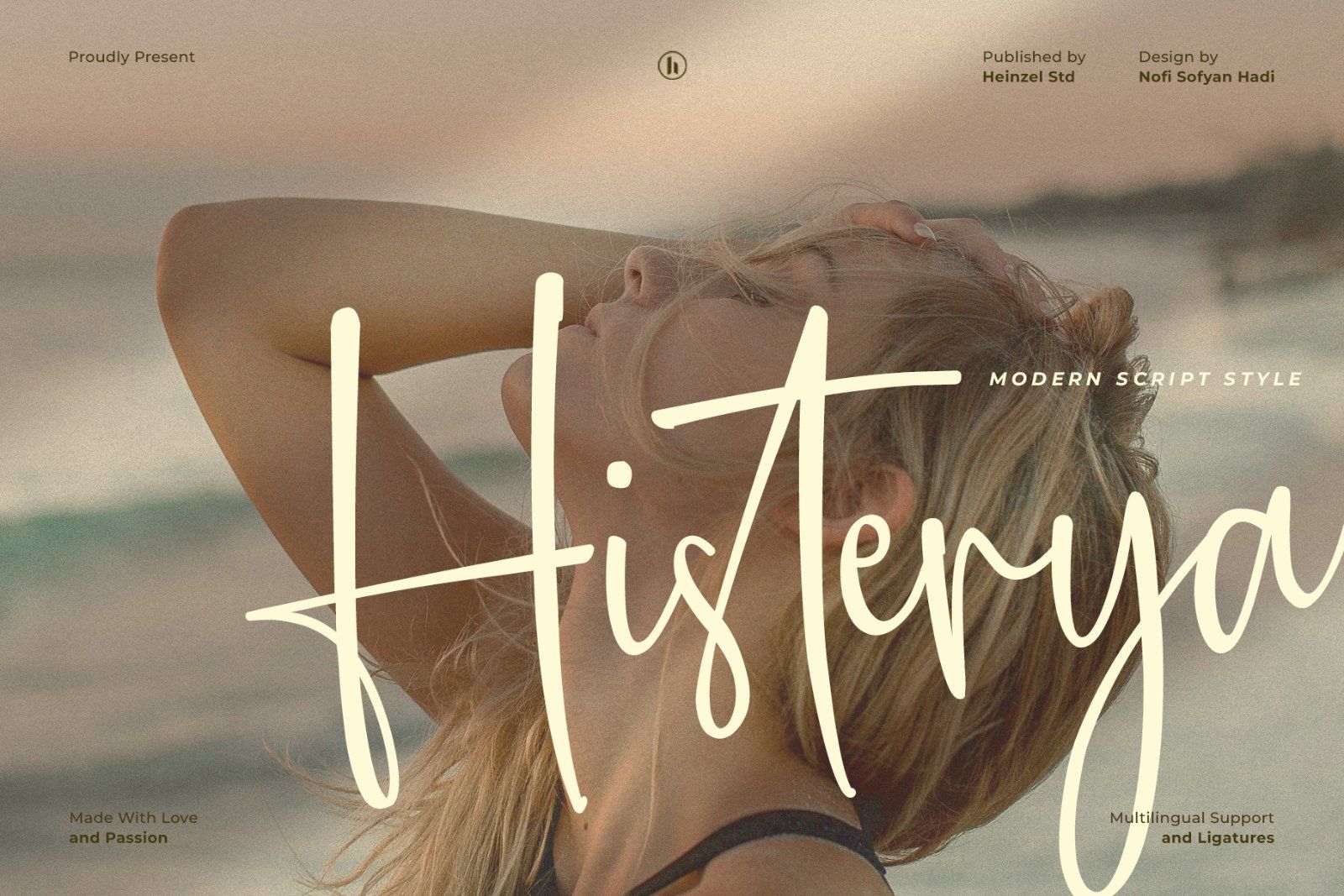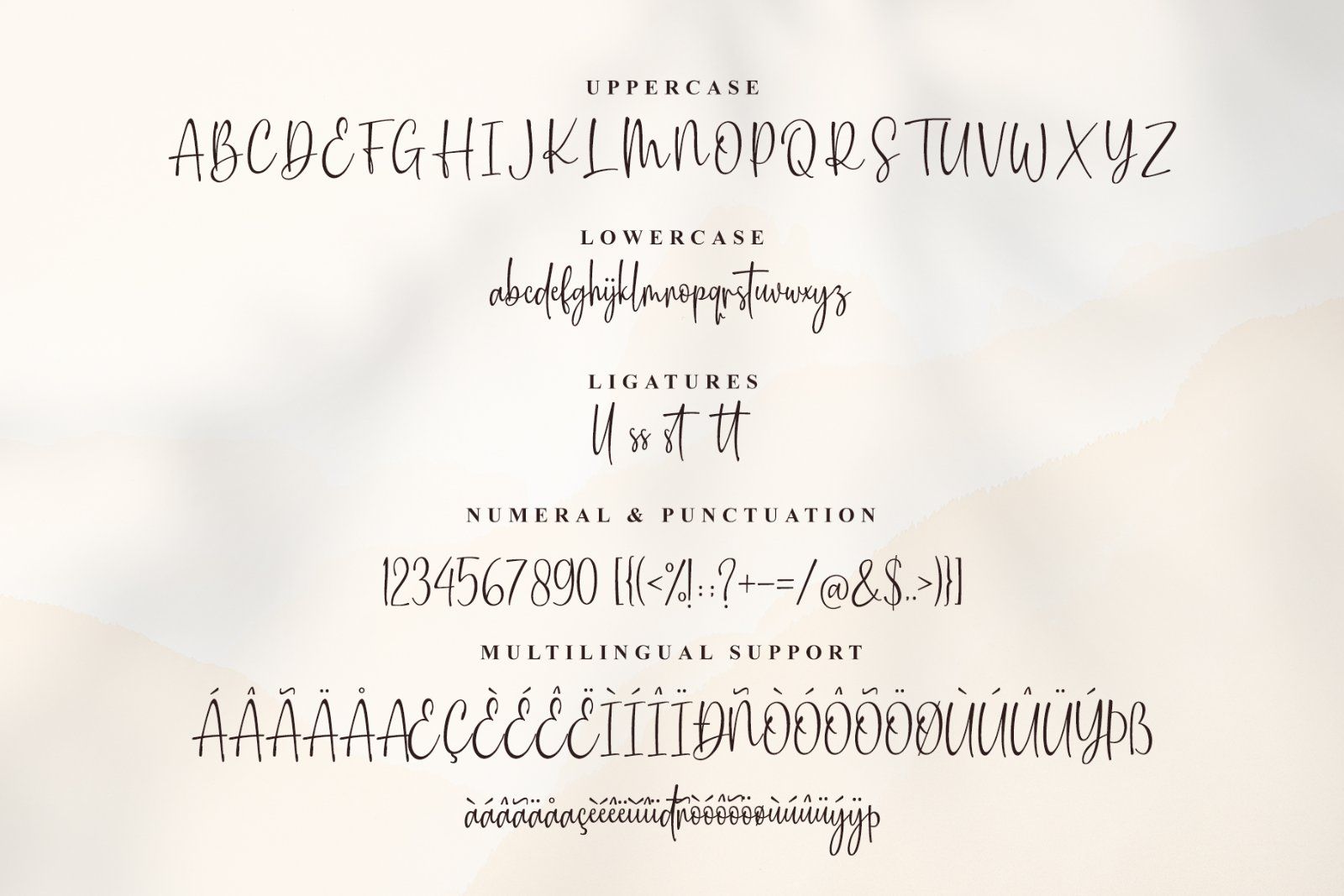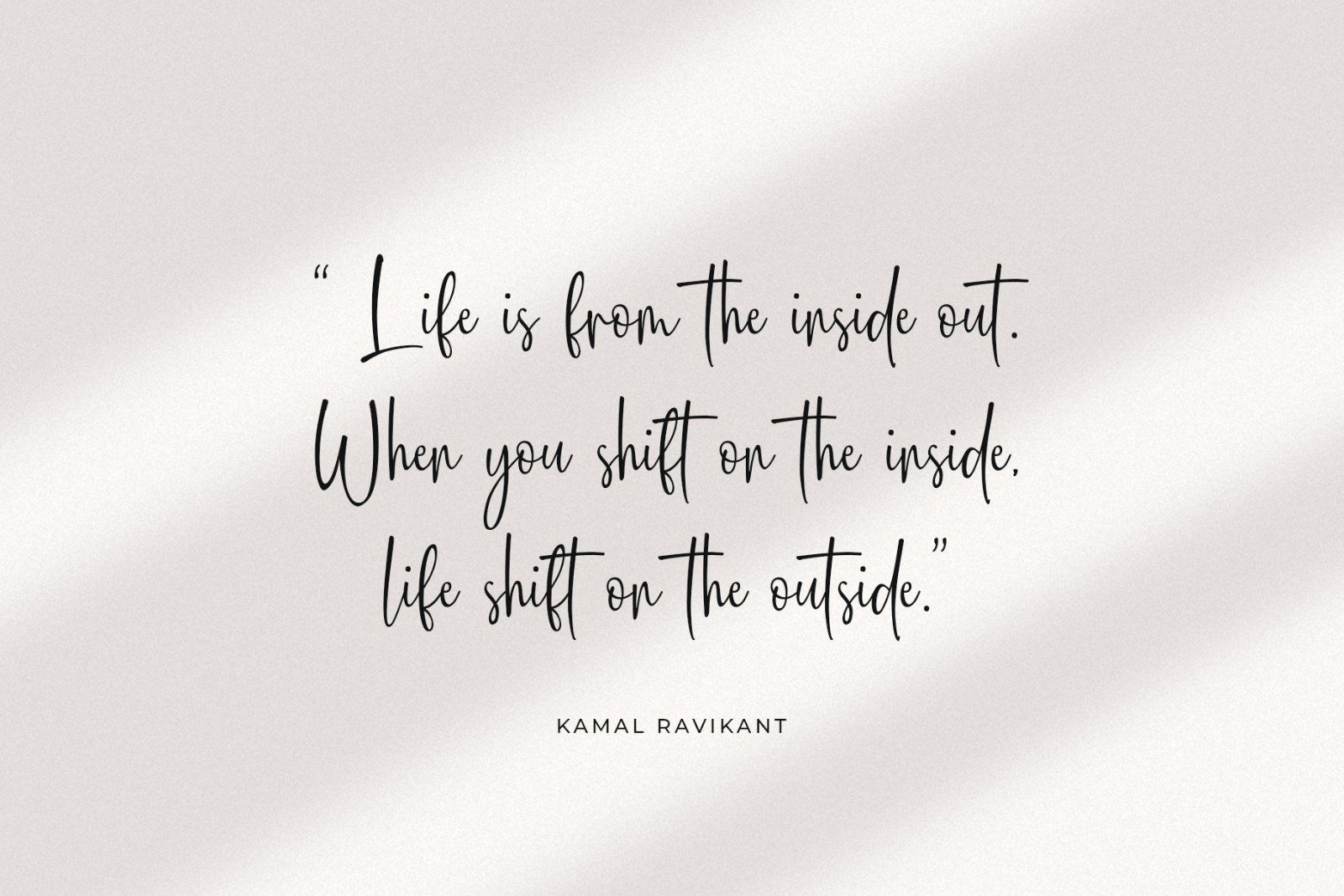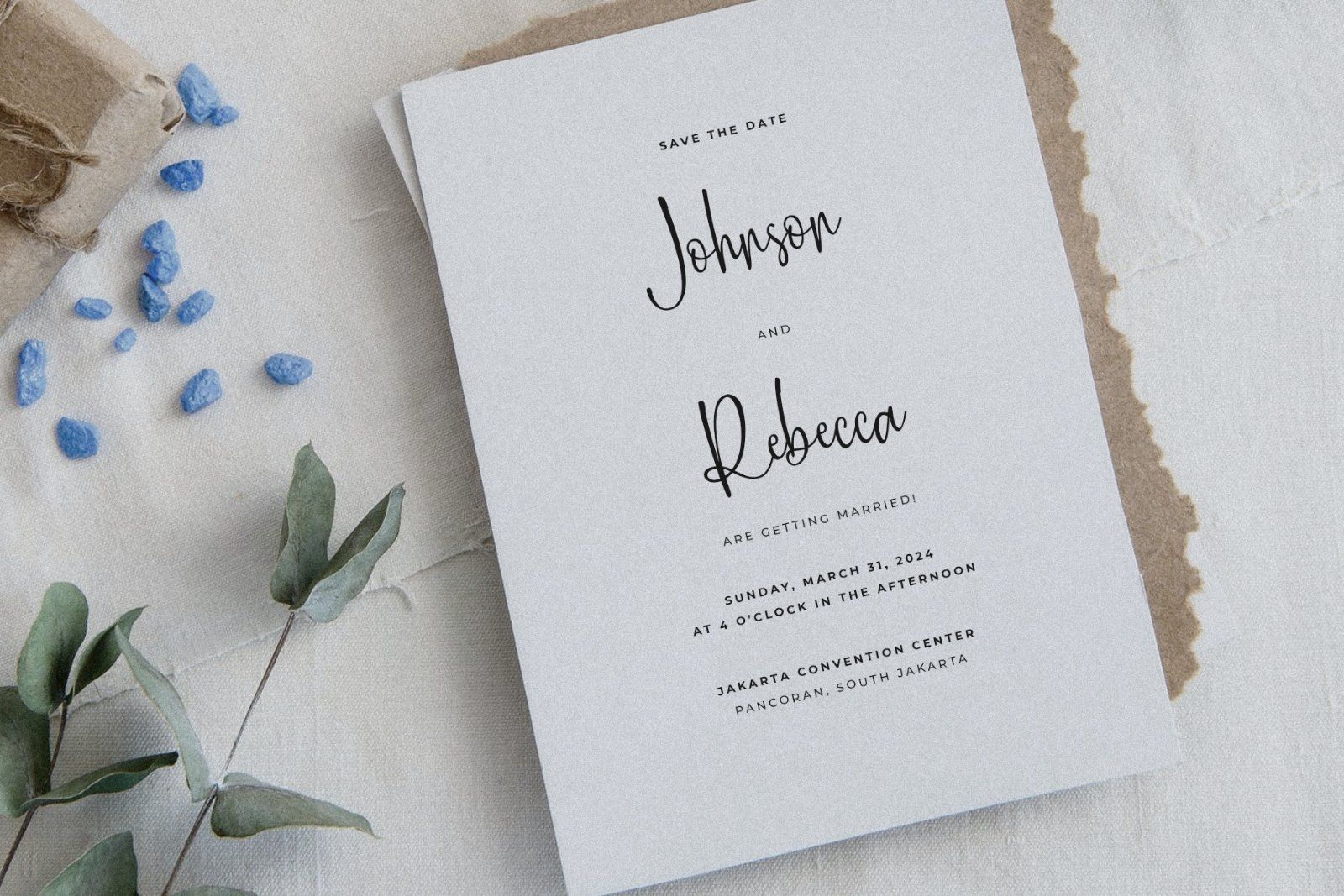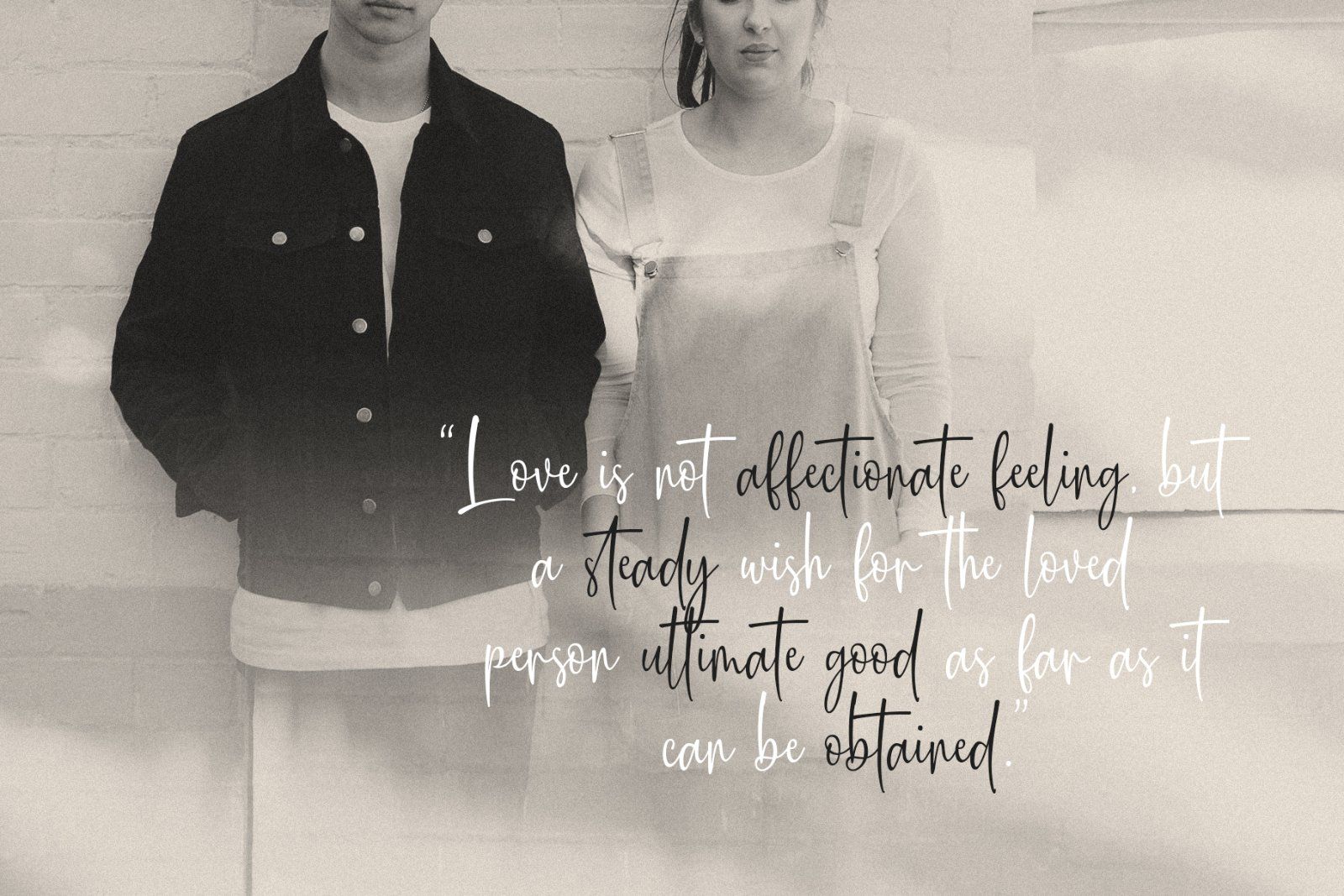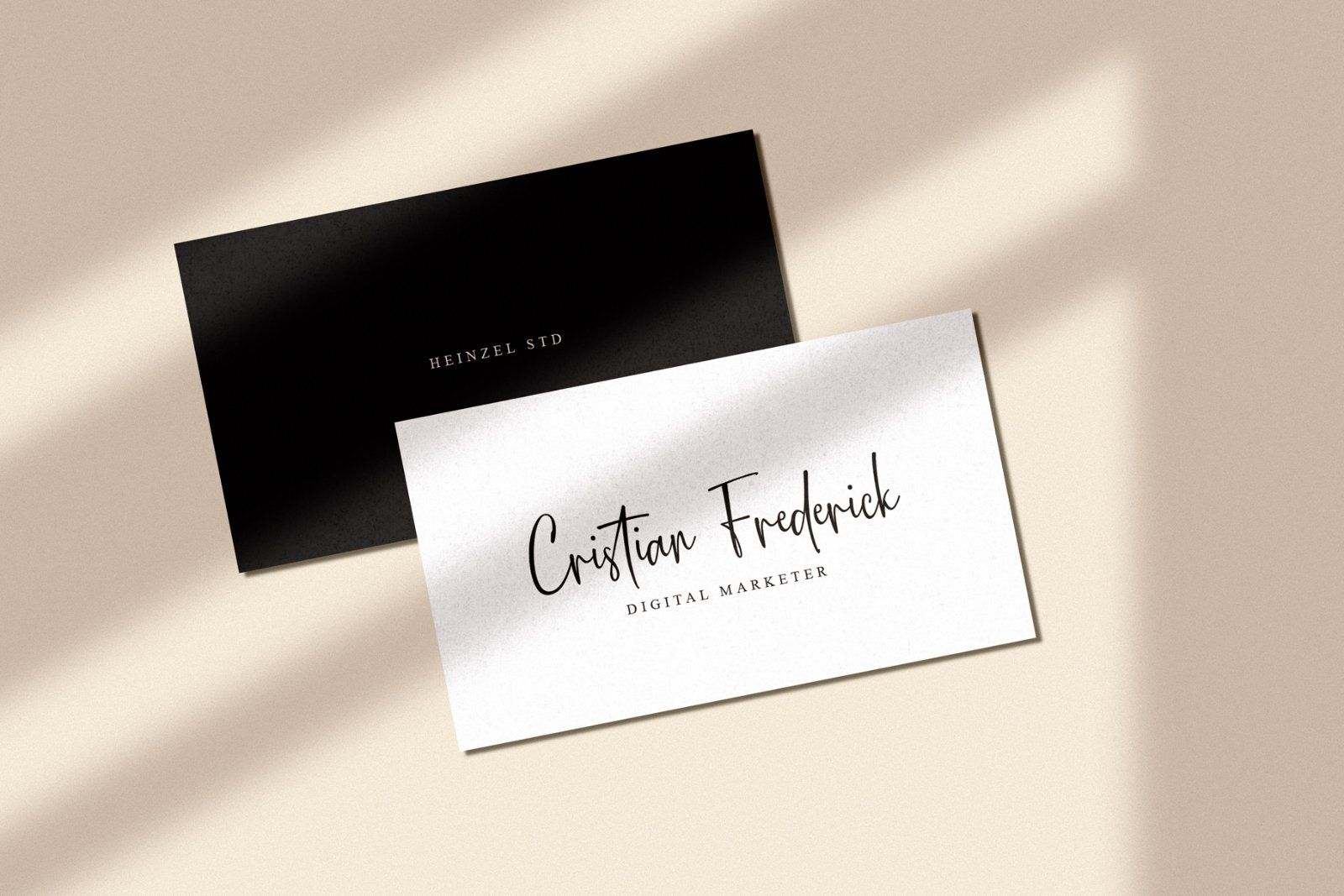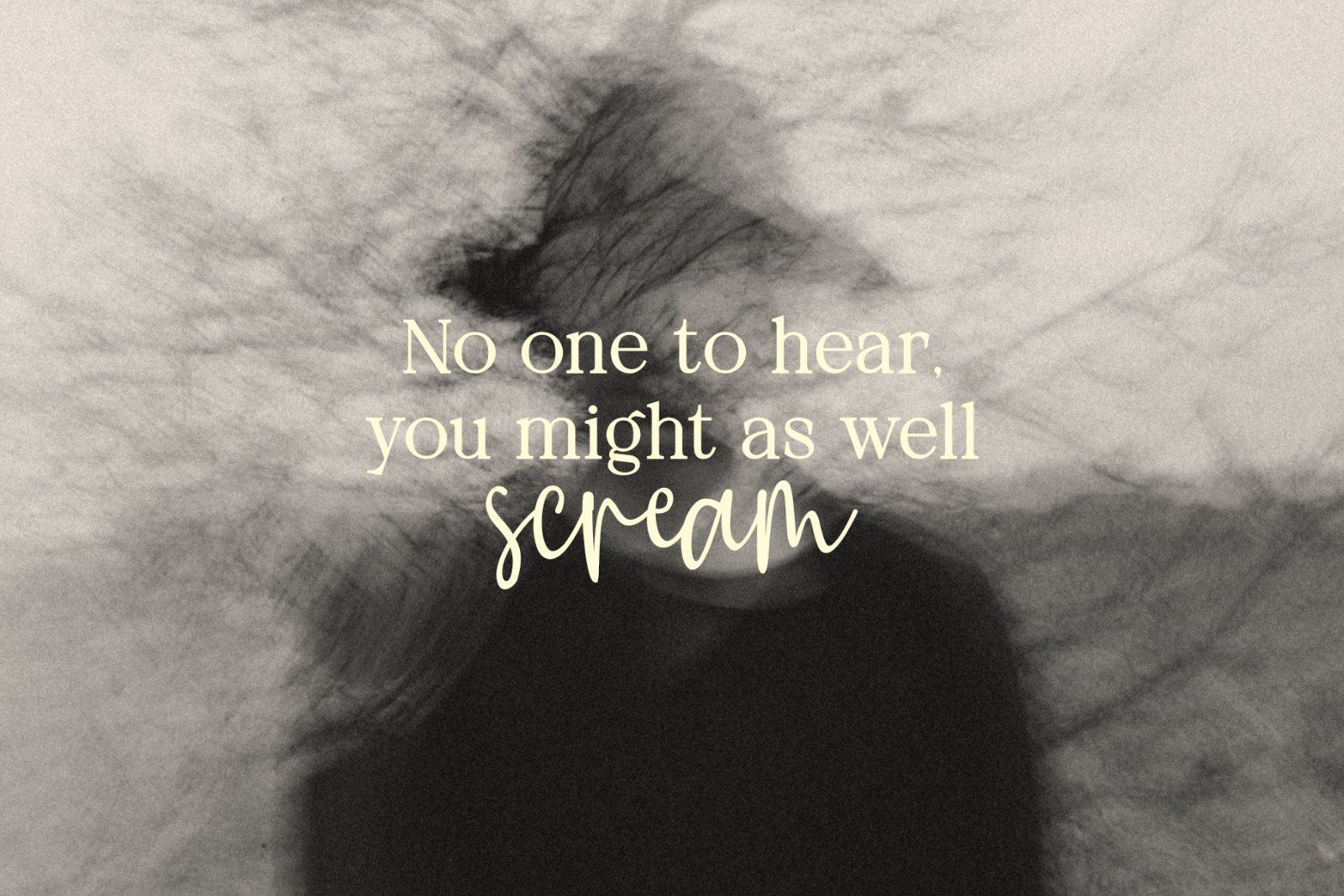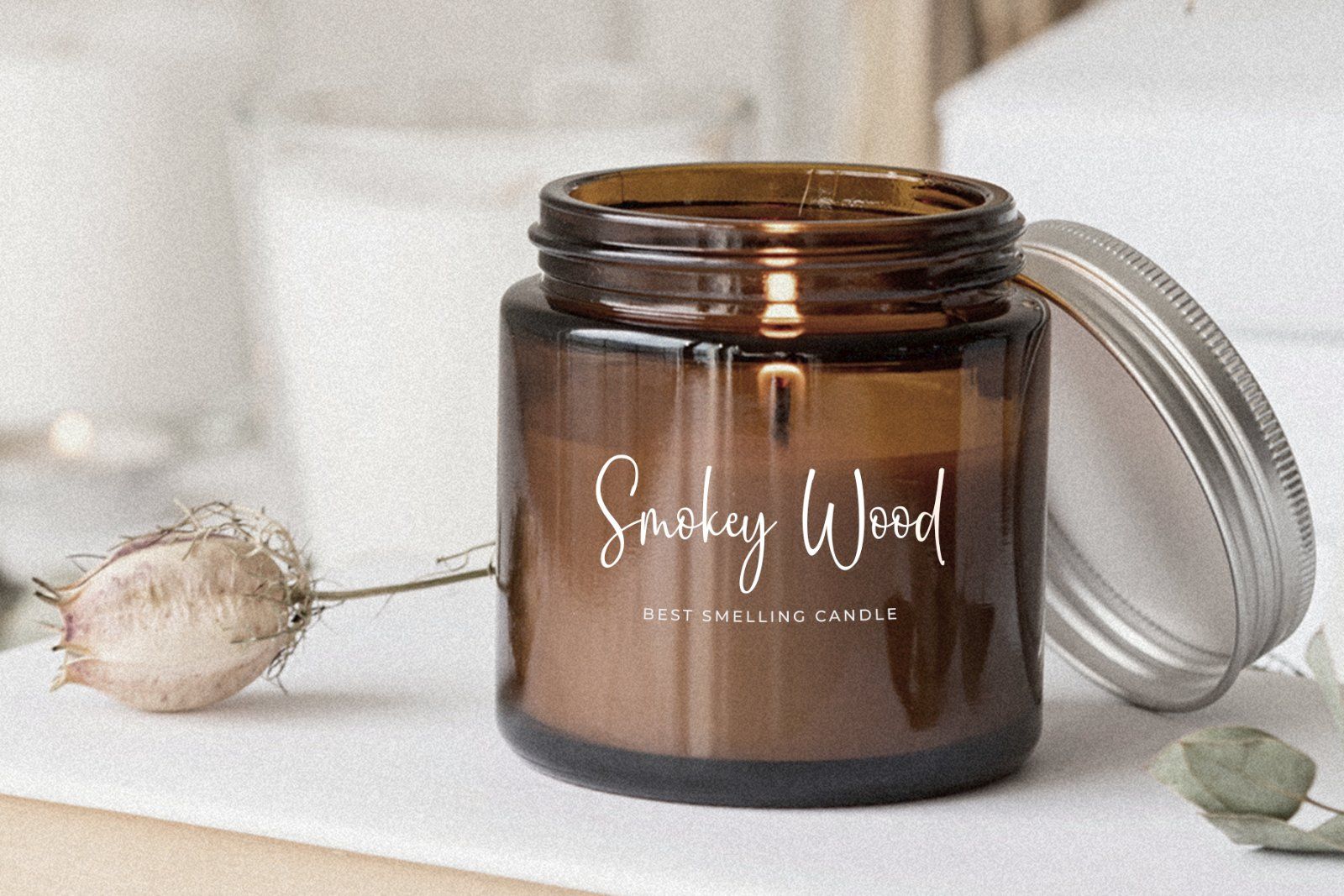
Histerya is an elegant and flowing handwritten font. It is PUA encoded which means you can access all of the glyphs with ease! It features a varying baseline, smooth lines, gorgeous glyphs and stunning ligatures. Fall in love with this font and bring your projects to the highest levels. Use it to create beautiful greeting cards, wedding invitations, logos, website titles, social media design and much more!